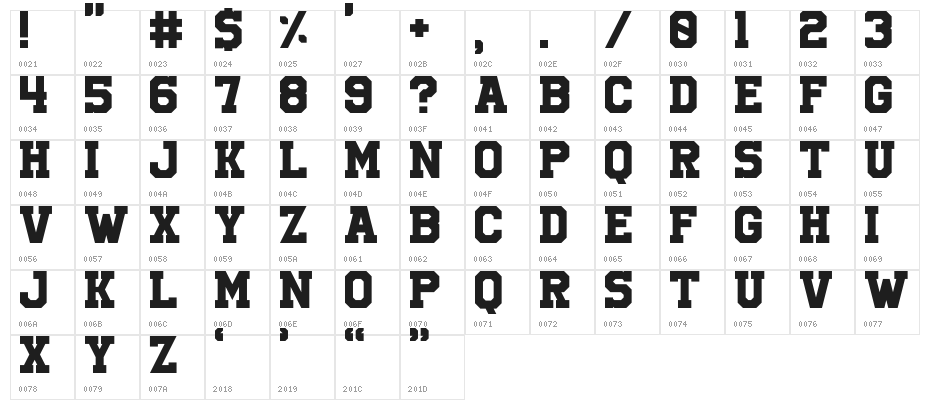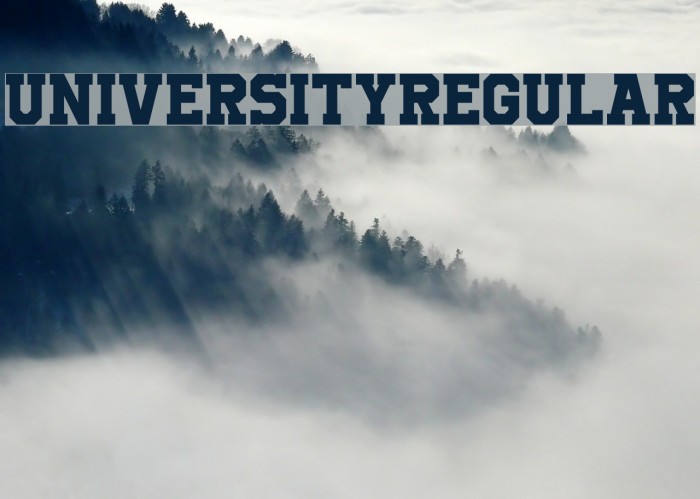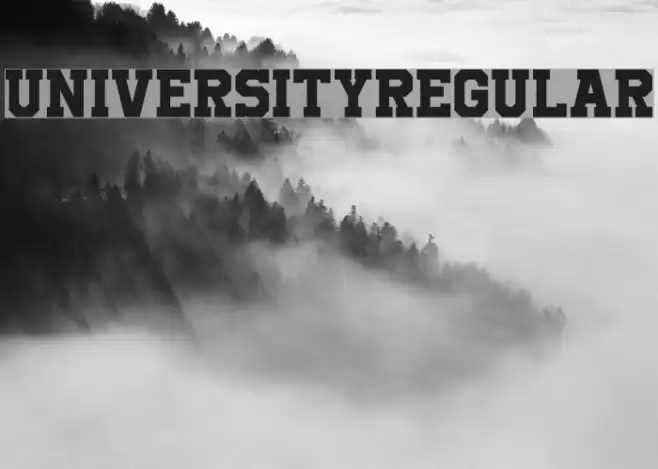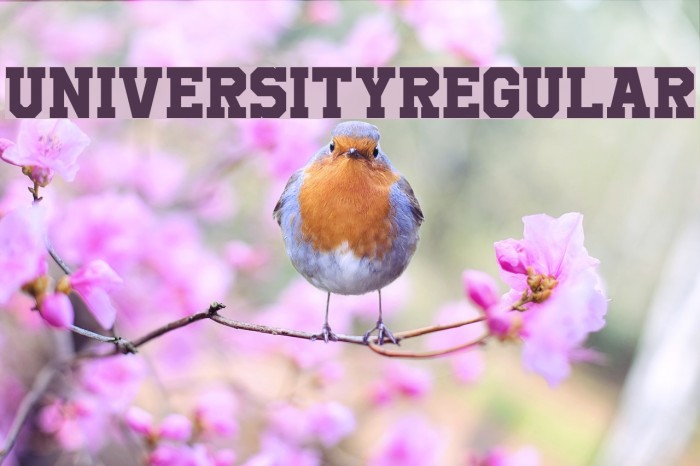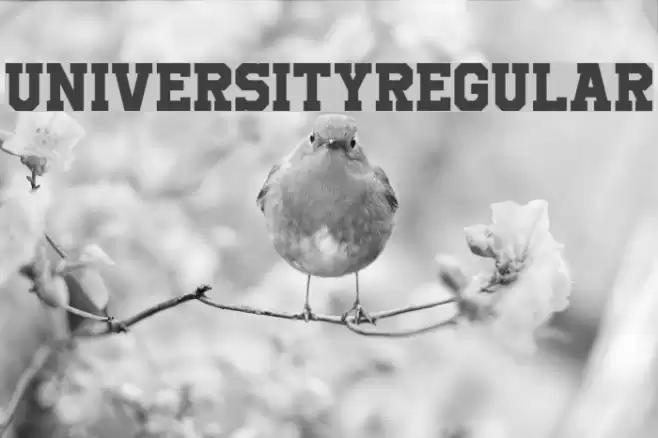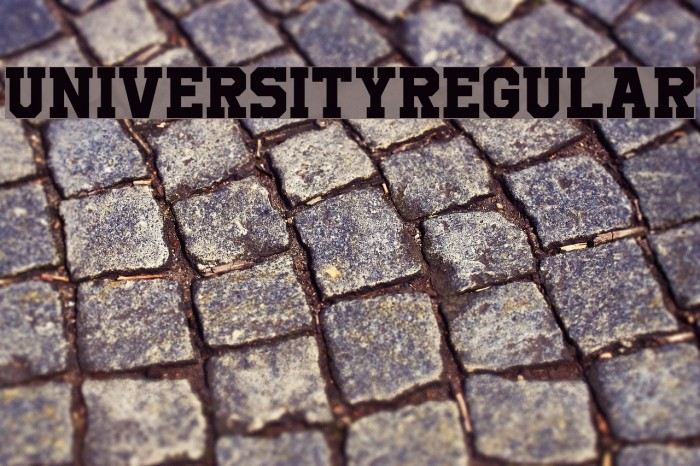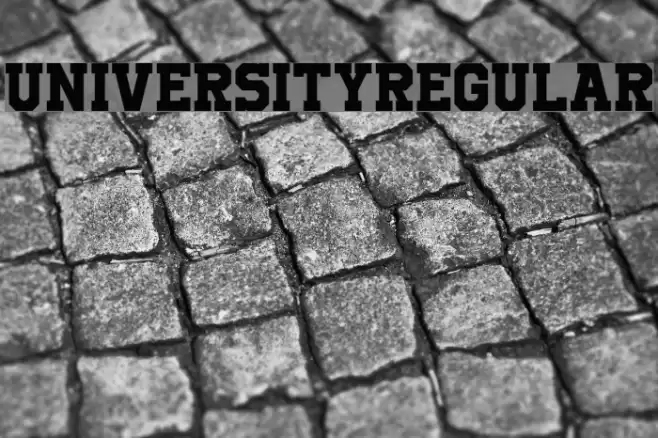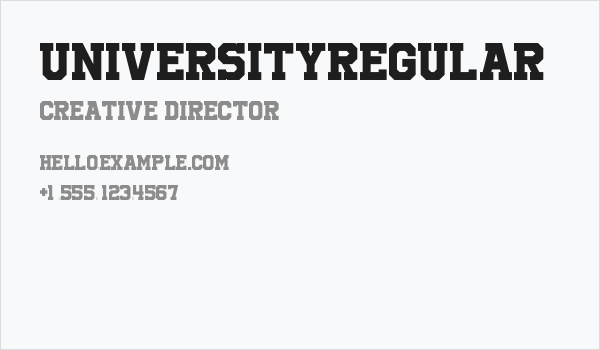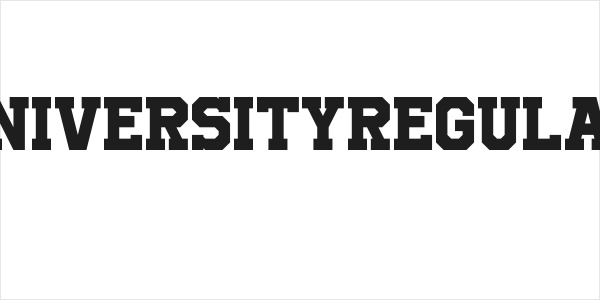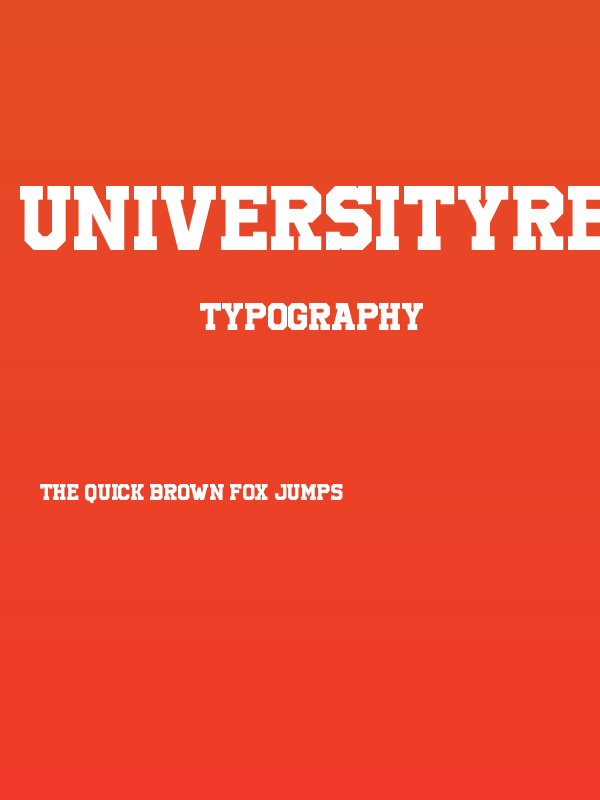
UniversityRegular Font
UniversityRegular Description
This font exhibits a bold and robust design, characterized by thick, blocky letters with a strong presence. The uppercase letters are uniformly structured, giving a sense of stability and strength. The numbers and special characters maintain this bold aesthetic, ensuring consistency across all glyphs. The font's geometric shapes and sharp angles contribute to its authoritative and impactful appearance, making it suitable for settings that require a commanding visual presence.
| Proposed Projects | Ideal for sports team branding, university merchandise, posters, and headlines that require a bold statement. |